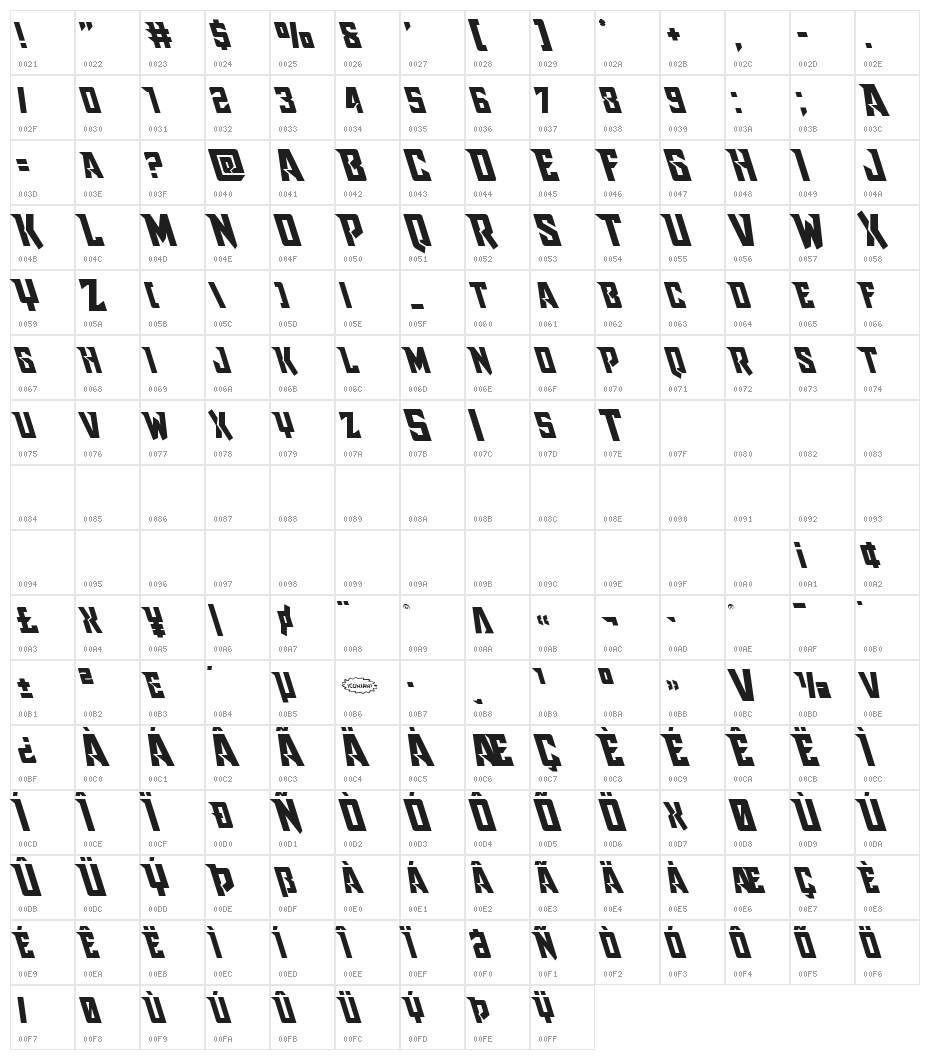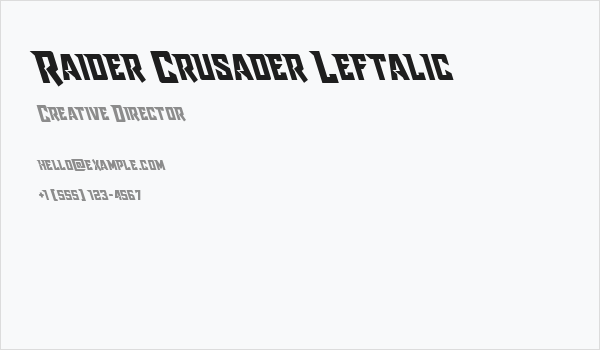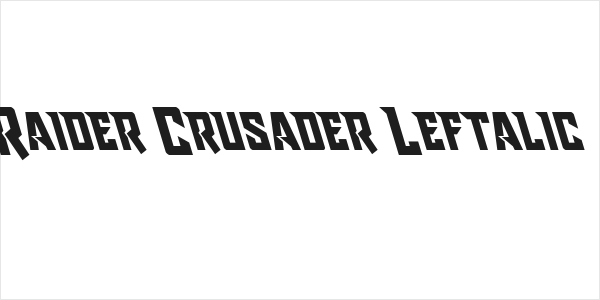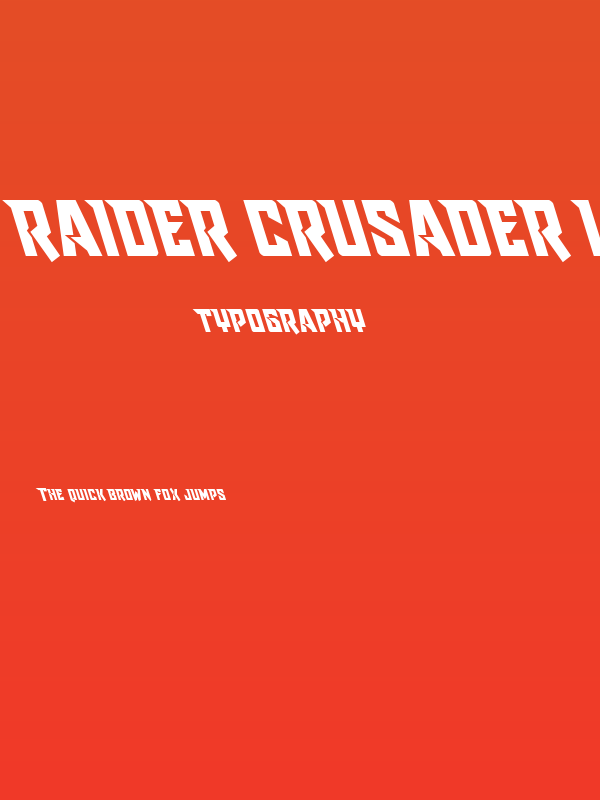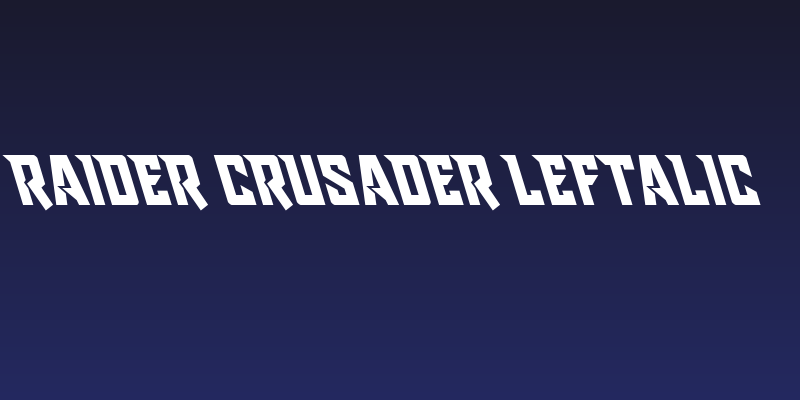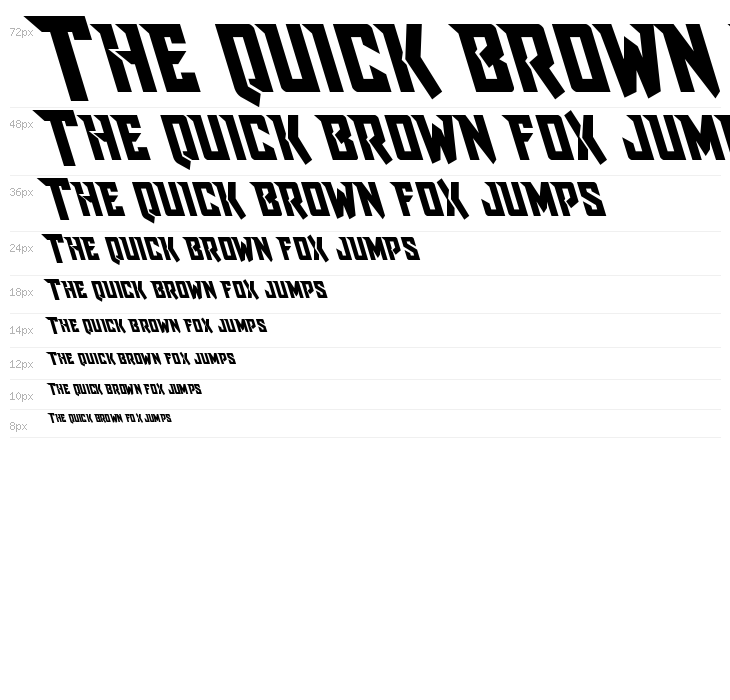
Raider Crusader Leftalic Font
Raider Crusader Leftalic Description
This font features a bold, angular design with a distinct leftward slant, giving it a dynamic and aggressive appearance. The characters are sharply cut with a futuristic, almost militaristic style, making it ideal for projects that require a strong, impactful visual presence. The uppercase and lowercase letters maintain a consistent geometric form, while the numbers and special characters follow the same bold and striking aesthetic. The font's unique style is perfect for creating attention-grabbing headlines or logos that need to convey strength and modernity.
| Proposed Projects | Ideal for sports team branding, video game titles, action movie posters, and dynamic logo designs. |